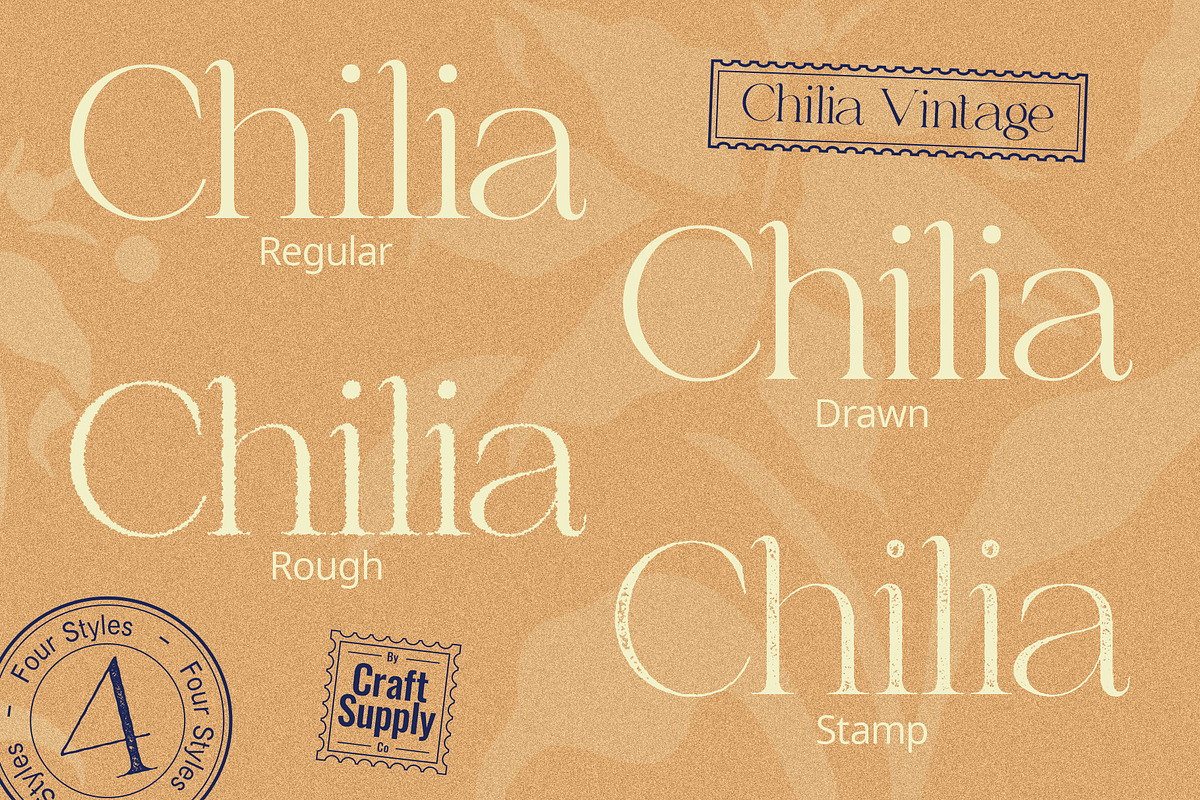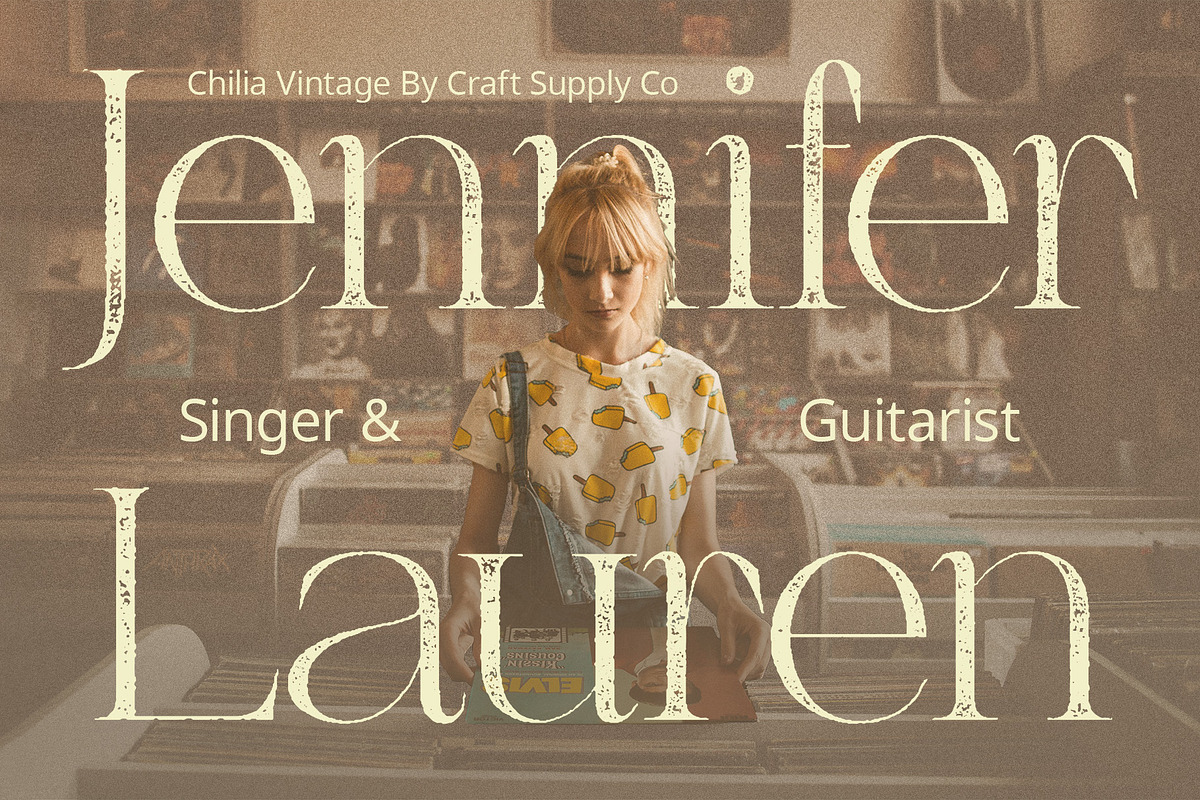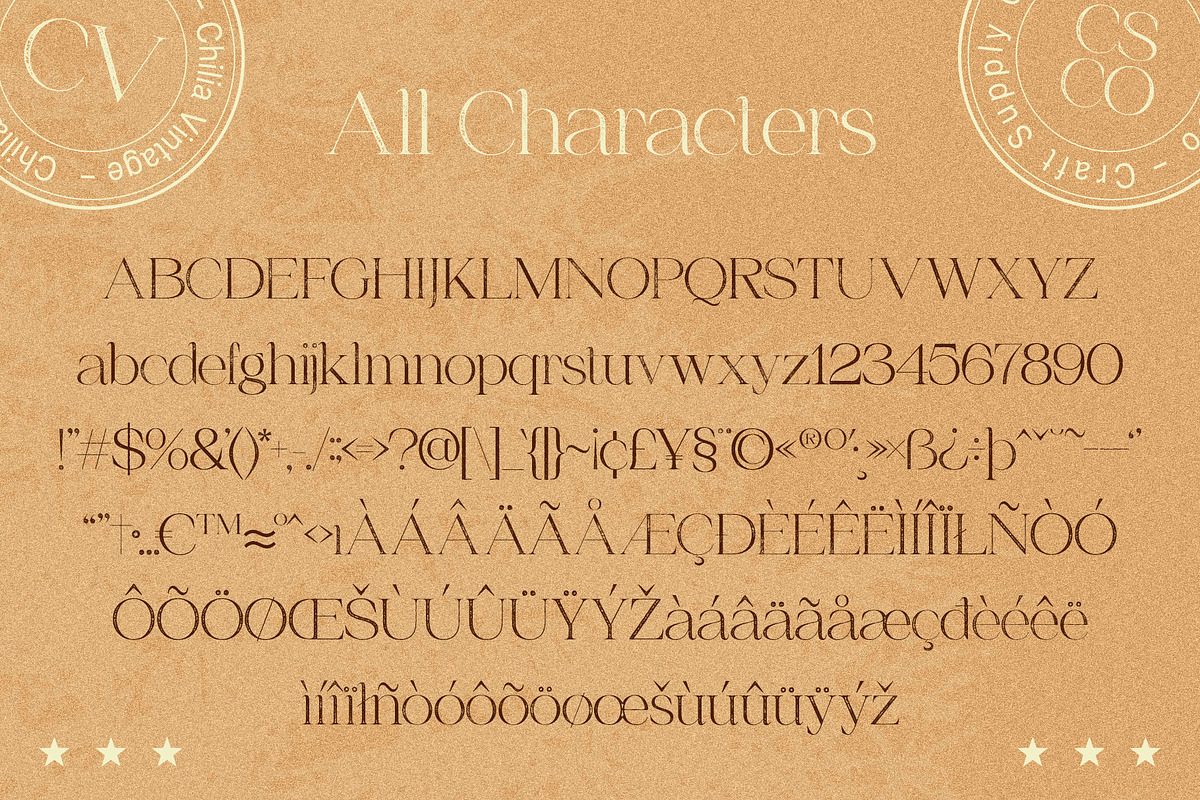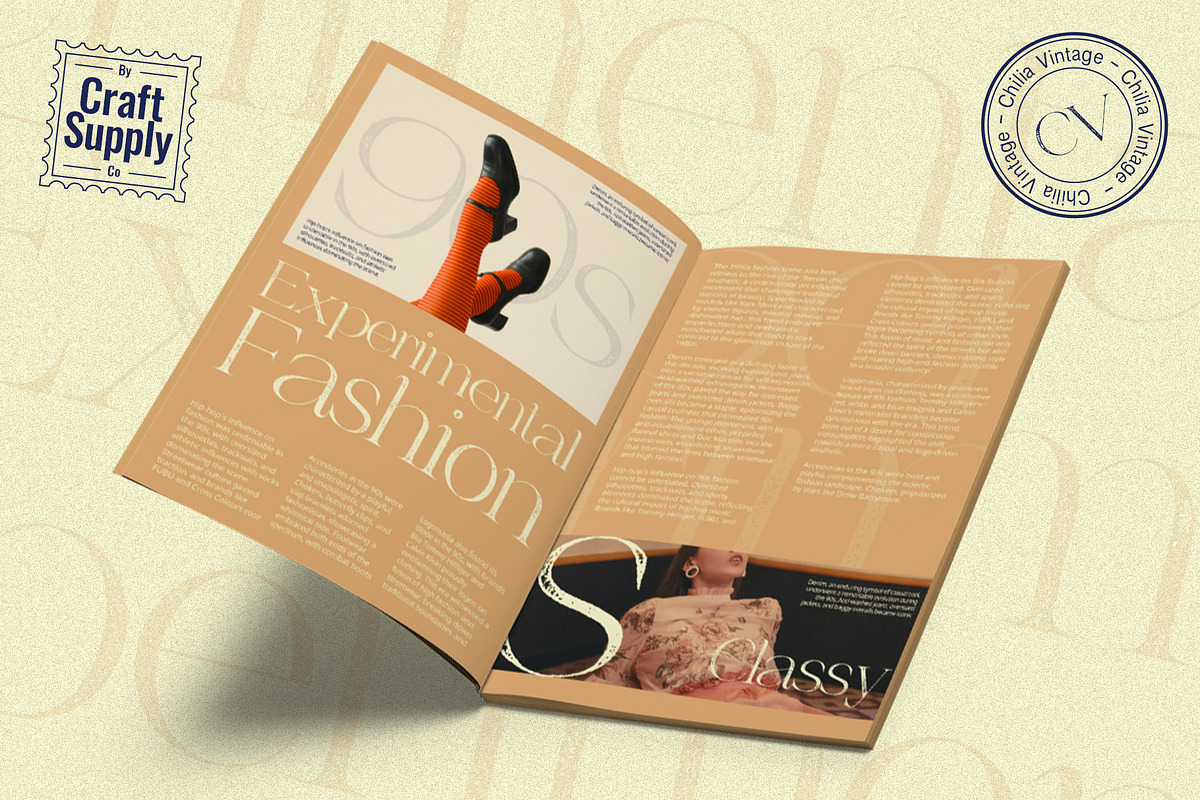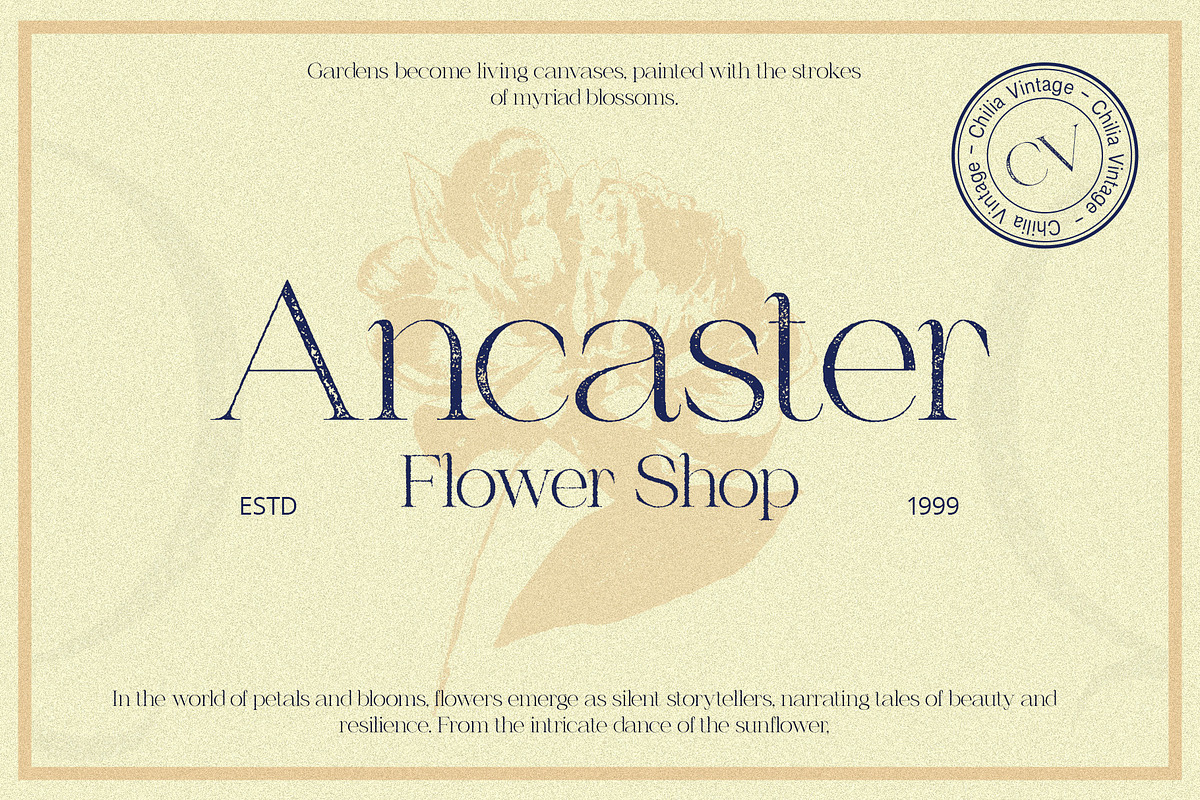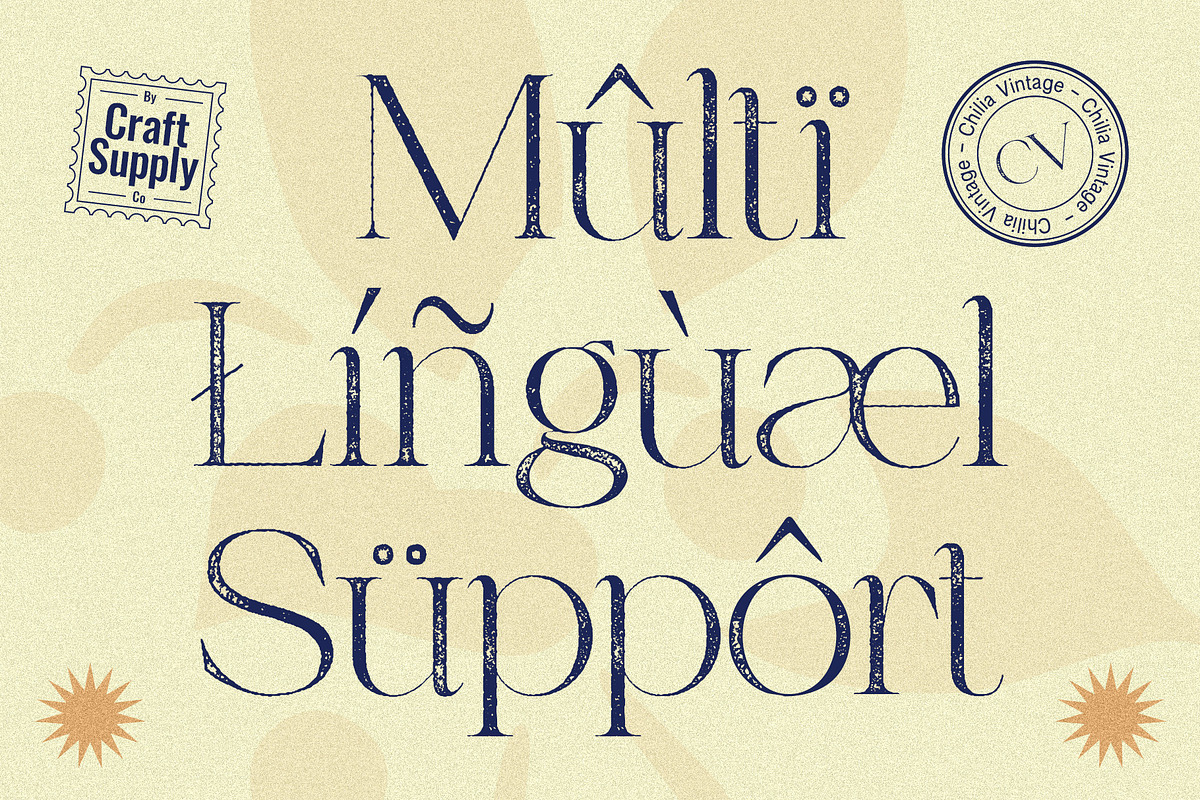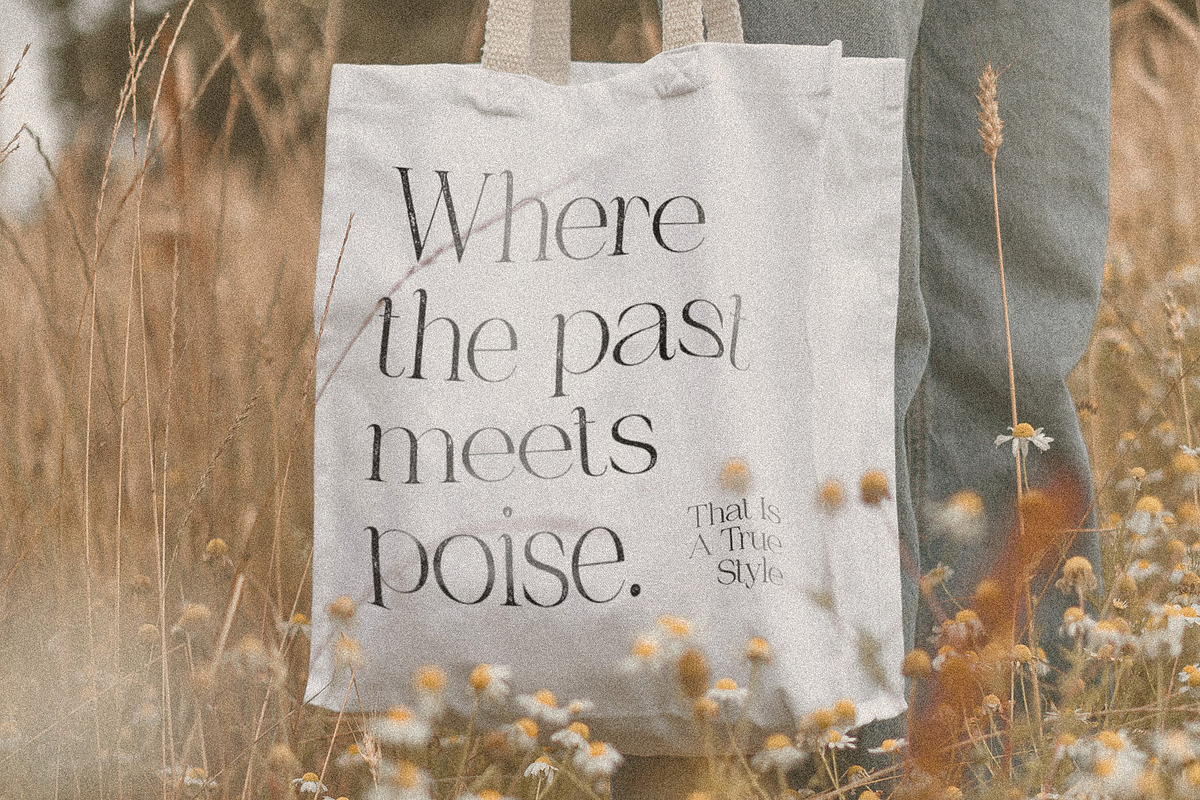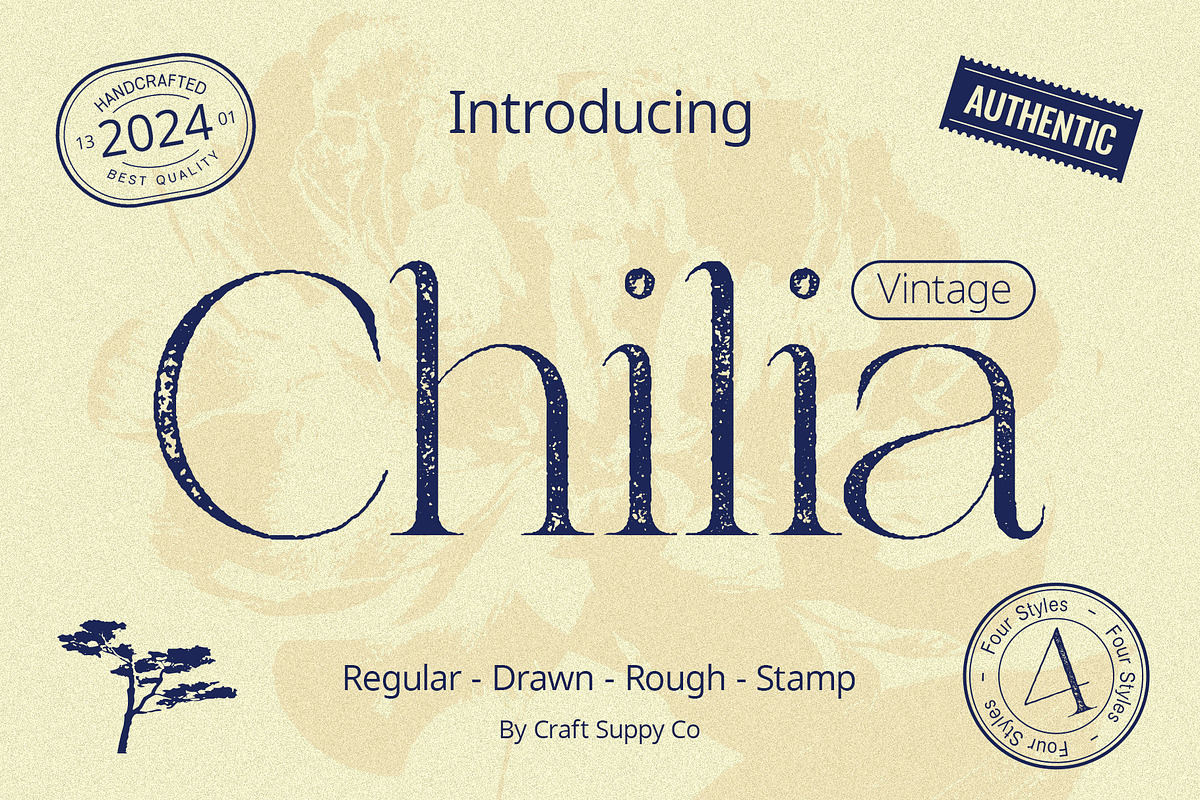
Chilia Vintage
Chilia Vintage Font: Nostalgic Charm in Every Stroke
Vintage Allure Chilia Vintage, a serif display font, takes you on a journey back in time with its distinct stamp and rough effects.
Rugged Sophistication The font exudes a rugged sophistication, making it ideal for projects that require a touch of vintage charm. The stamp effect adds a raw, authentic quality to each character.
Eye-Catching Appeal Chilia Vintage doesn’t just stop at vintage; it goes a step further with eye-catching details. The carefully crafted rough edges create a unique aesthetic, ensuring your design stands out.
Versatility in Design While inherently vintage, Chilia Vintage’s versatile design makes it suitable for a range of creative endeavors. From posters to packaging, it adds a timeless flair to any project.
Conclusion Chilia Vintage is more than a font; it’s a testament to the enduring appeal of vintage design. Immerse your projects in the nostalgic charm of Chilia Vintage, where every stroke tells a story of bygone eras.
- Chilia Regular
- Chilia Drawn
- Chilia Rough
- Chilia Stamp